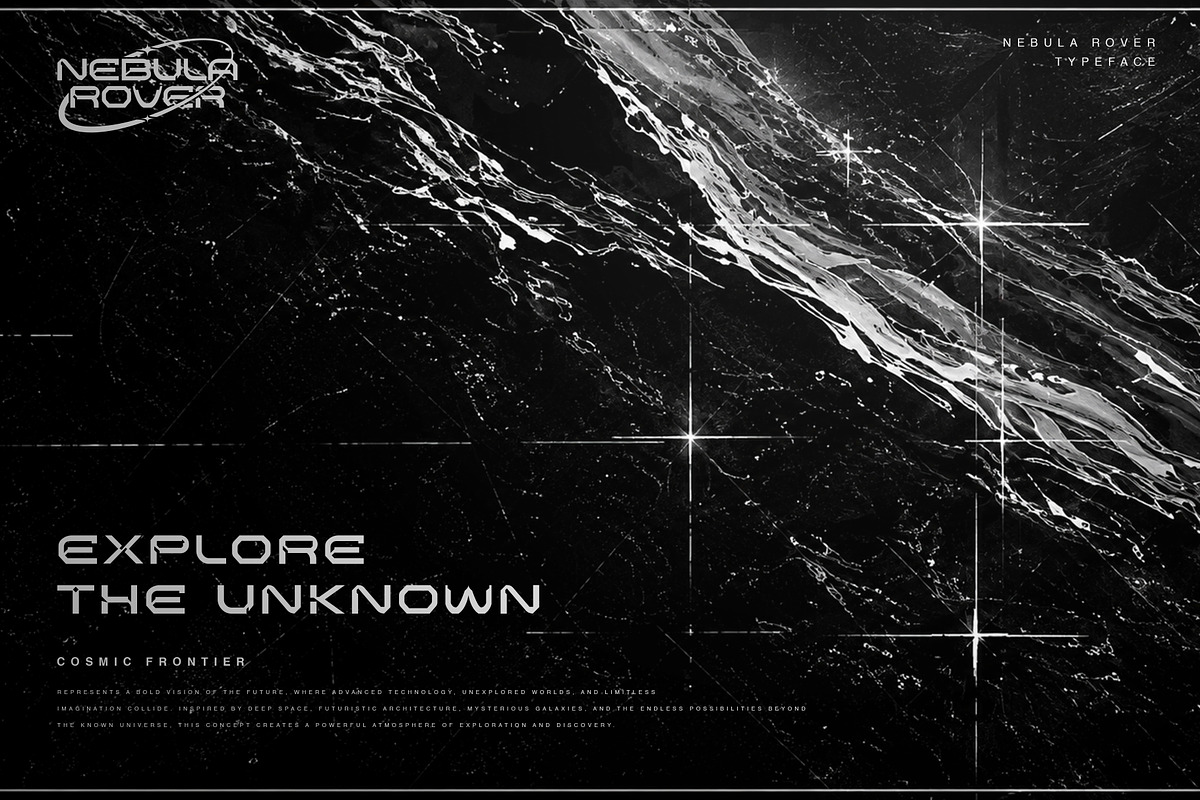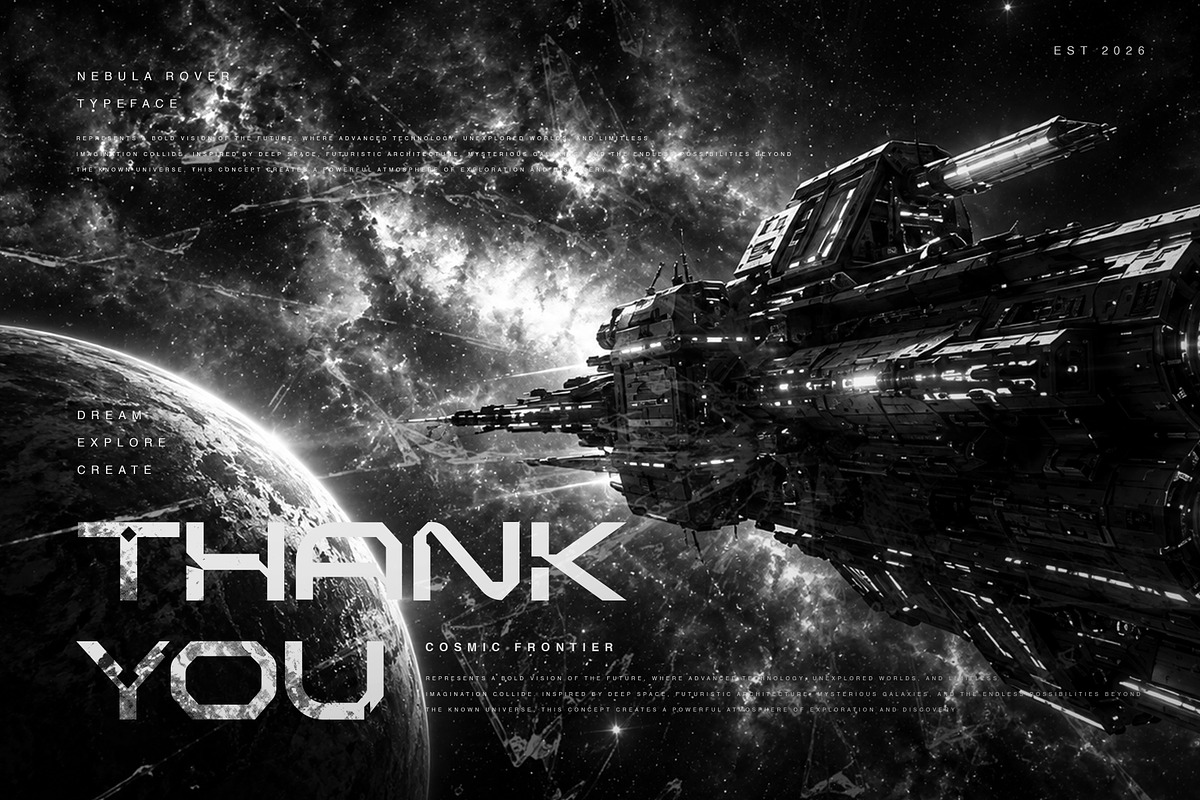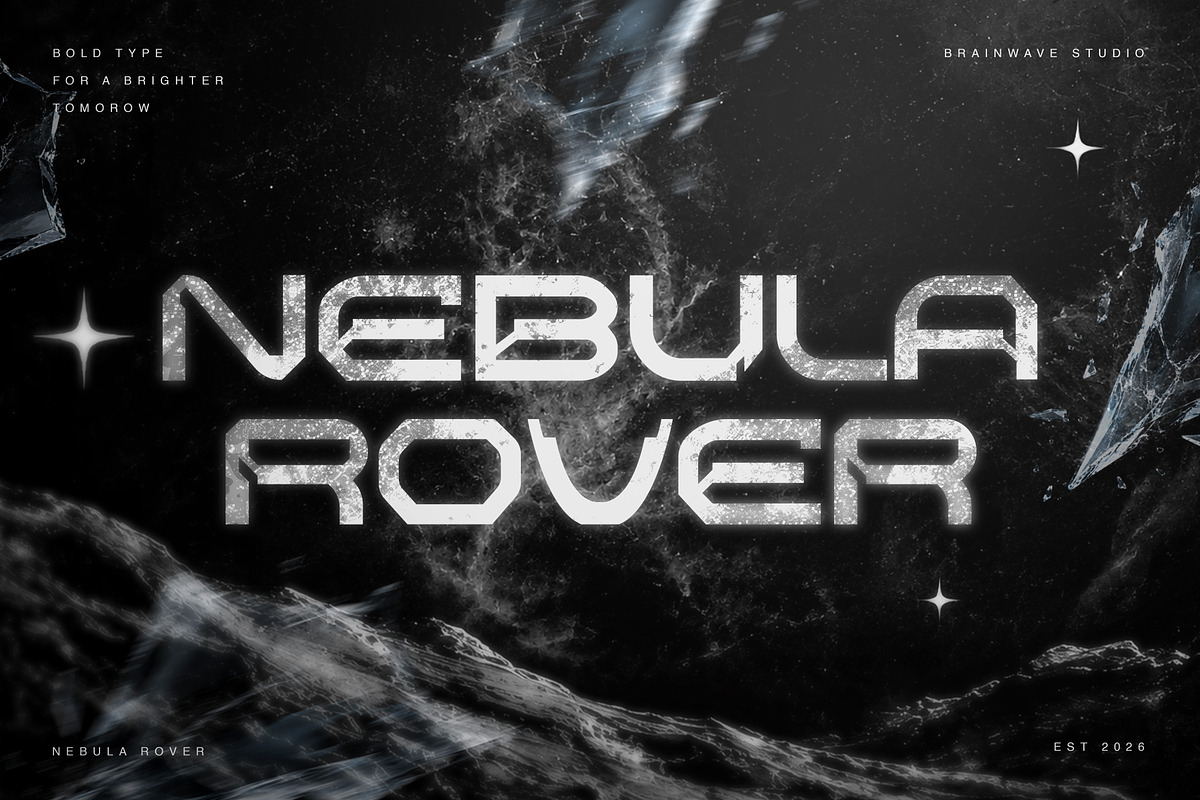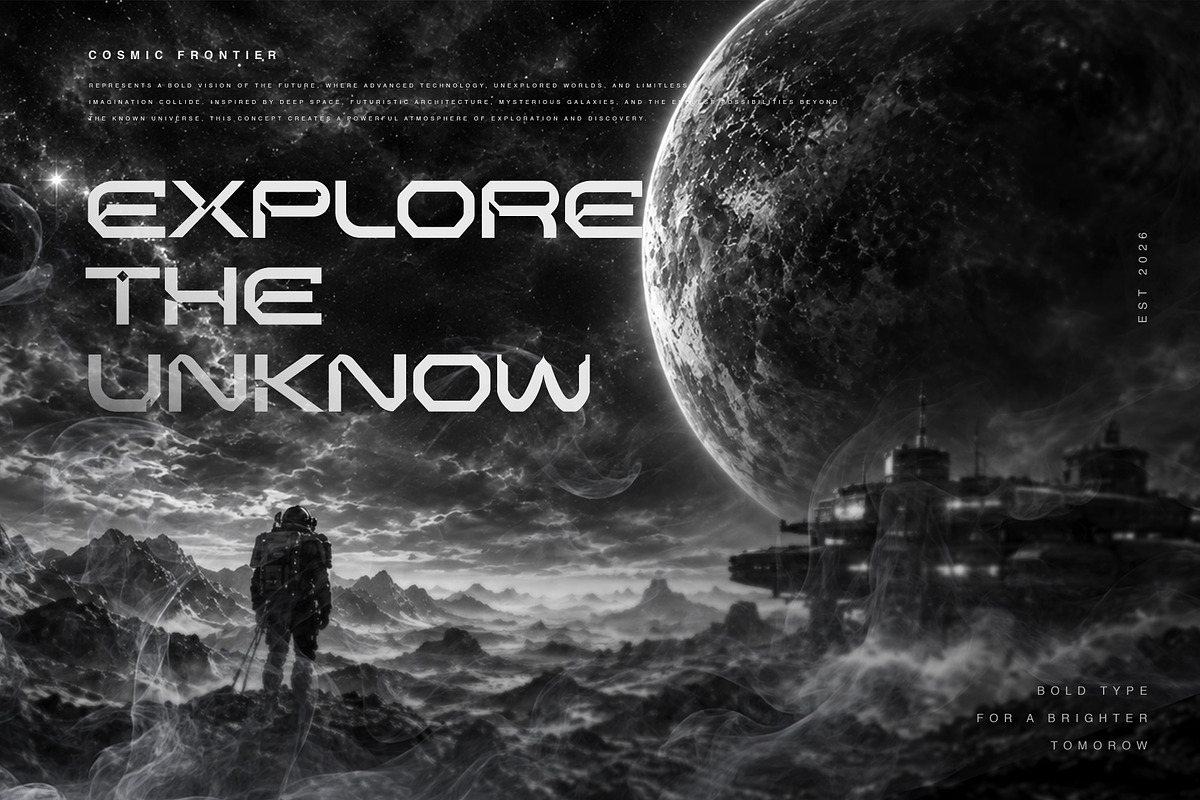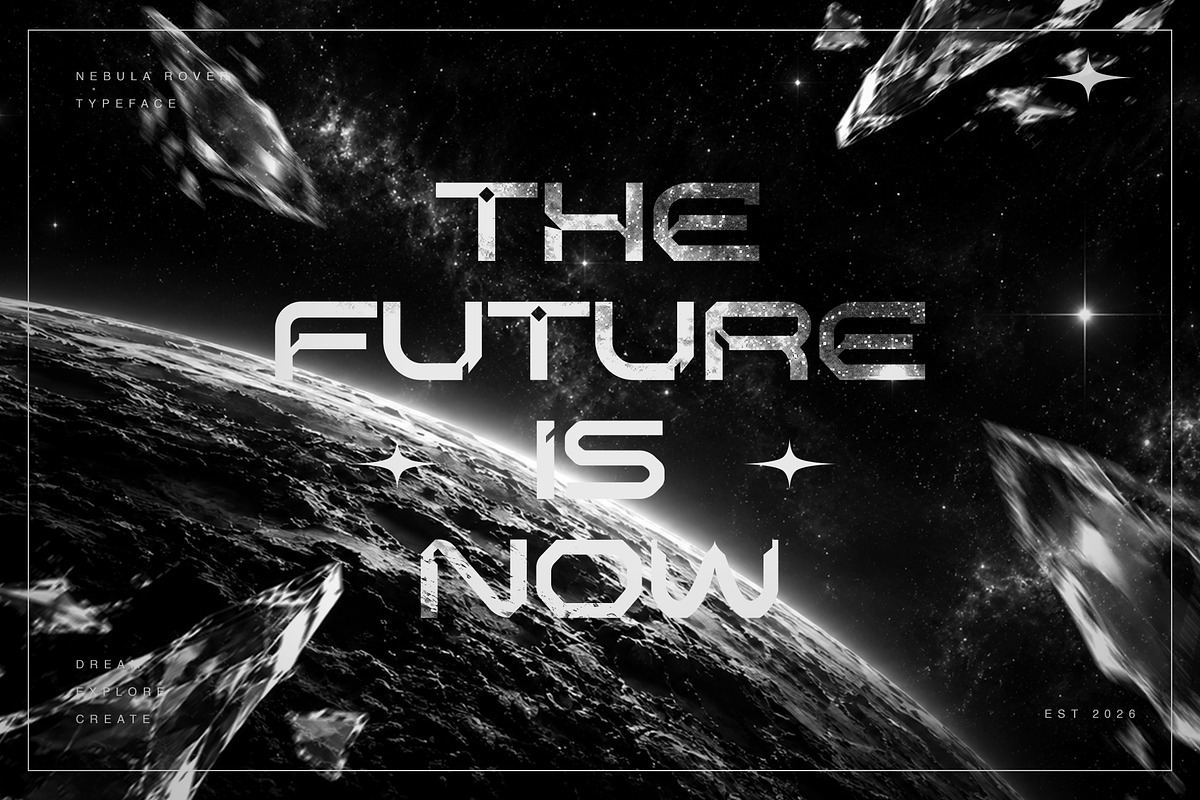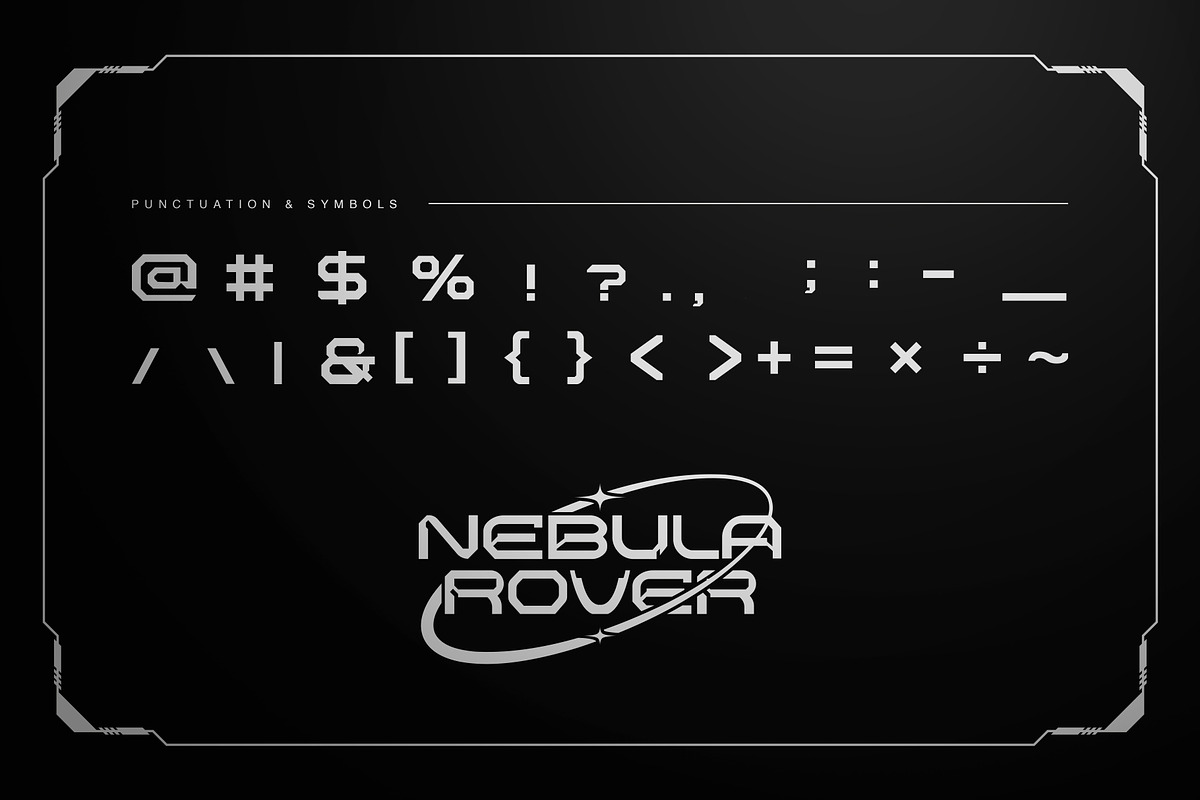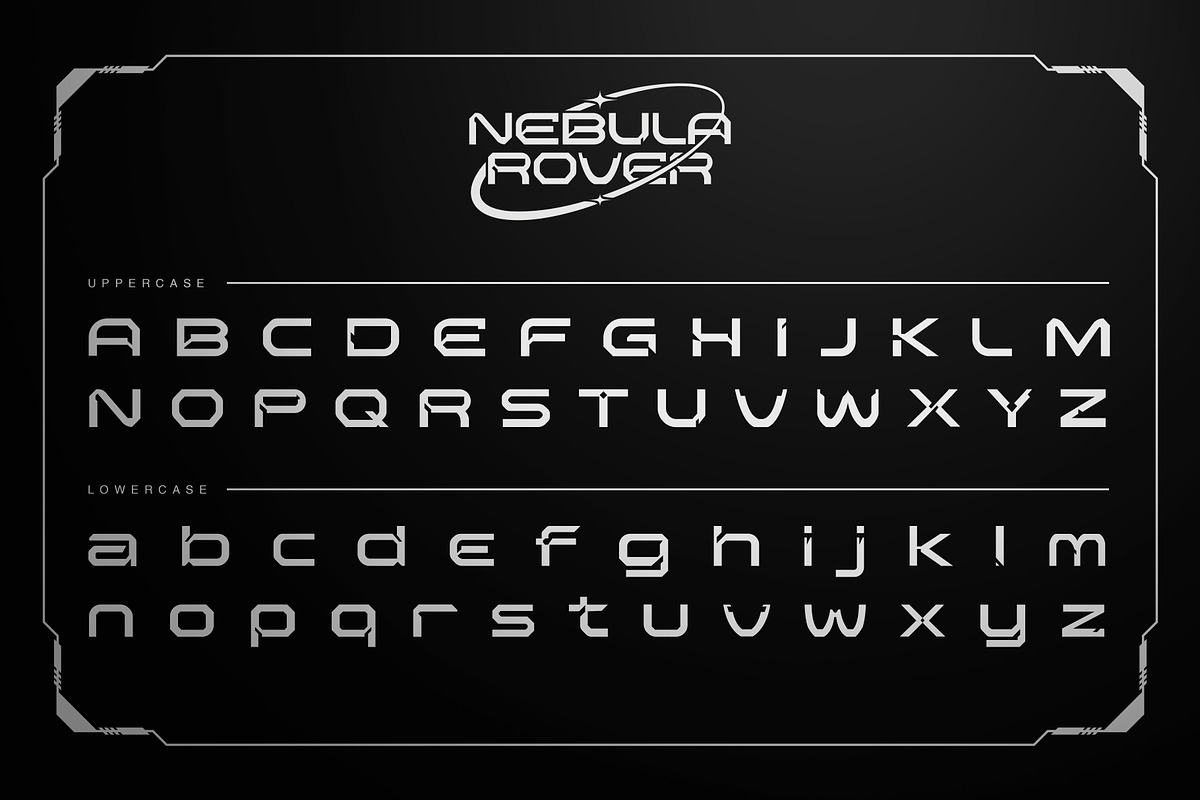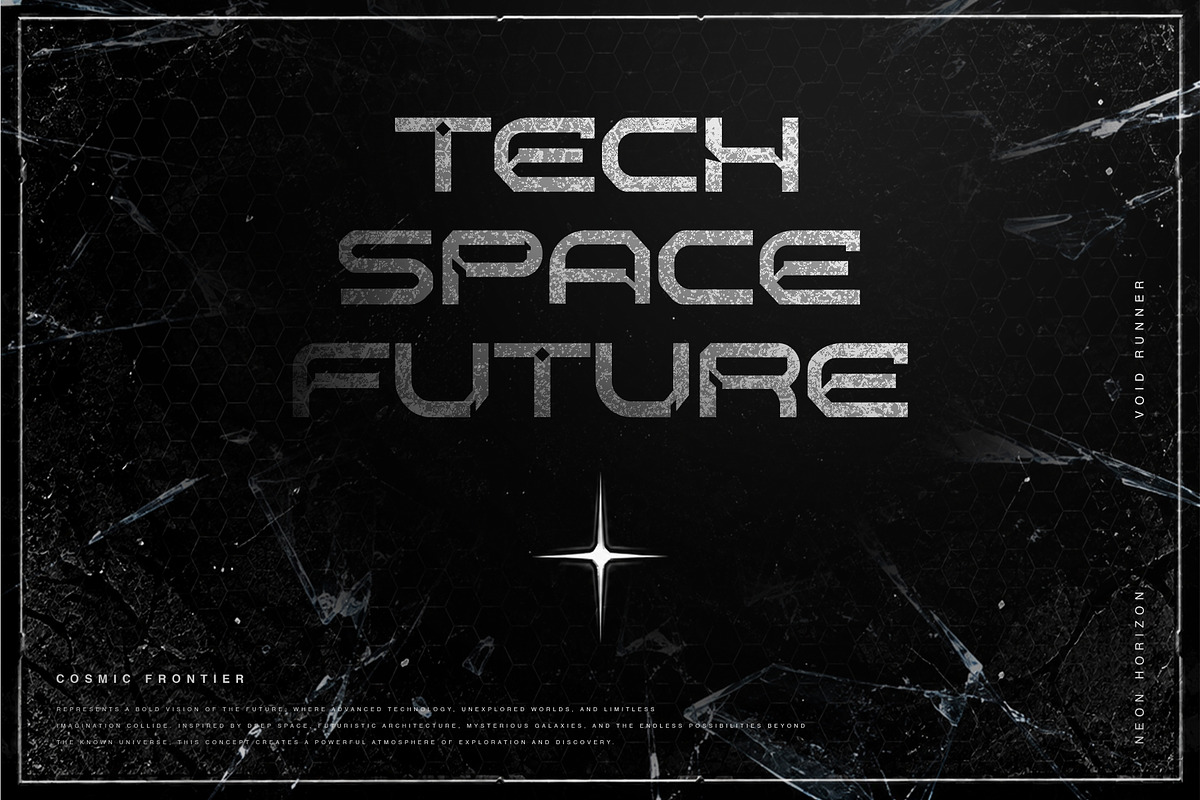
NEBULA ROVER - Futuristic Sci-Fi
NEBULA ROVER is a bold futuristic display typeface inspired by deep space exploration, advanced technology, cosmic environments, and the visual language of science-fiction interfaces. Its distinctive geometric construction combines sharp angular cuts, strong structural forms, and futuristic letter proportions to create a powerful technological personality.
Designed for high-impact visual communication, NEBULA ROVER works especially well when typography needs to become a major part of the artwork. The strong silhouette of each character makes it highly visible in large-scale applications such as posters, movie titles, game graphics, album covers, futuristic branding, editorial layouts, advertisements, and promotional campaigns.
The typeface carries a cinematic space-age atmosphere that can instantly suggest concepts such as interstellar exploration, advanced civilization, spacecraft technology, digital worlds, cyber environments, cosmic discovery, futuristic architecture, and next-generation innovation.
Its bold geometric appearance makes NEBULA ROVER particularly suitable for sci-fi projects, gaming identities, esports graphics, technology branding, futuristic posters, cyberpunk artwork, space-themed designs, movie titles, streaming graphics, merchandise, and experimental typography.
The angular details and unconventional letter structures give the font a distinctive visual identity while maintaining strong readability when used as a display typeface. It can be paired with dark backgrounds, metallic textures, cosmic landscapes, neon lighting, holographic effects, chrome surfaces, atmospheric smoke, stars, planets, and futuristic interface elements.
NEBULA ROVER is designed to bring a sense of exploration, movement, technology, mystery, and futuristic energy into your creative projects.
Whether you are creating a science-fiction movie poster, futuristic game title, space exploration campaign, technology brand, album artwork, streetwear graphic, or experimental editorial design, NEBULA ROVER provides a strong visual foundation for creating memorable typography.
NEBULA ROVER — Designed by Brainwave Studio.